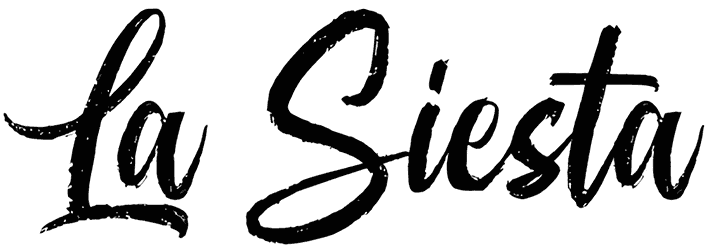
La Siesta Font
La Siesta font is a beautiful hand-lettering script font featuring a modern-vintage design. This brush font features a fascinating signature design with a modern and elegant cursive style.
If you are looking for a handwriting font that genuinely stands out, consider the La Siesta font. This conscientiously crafted typeface can be used for virtually any purpose, from posters, cosmetic brands, and logotypes, to other branding materials.